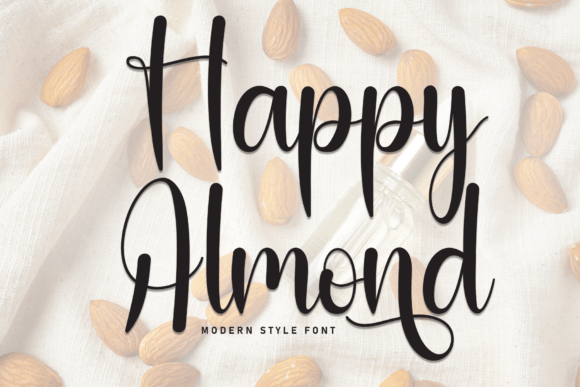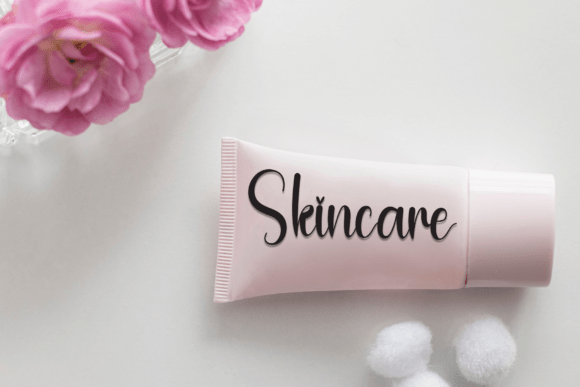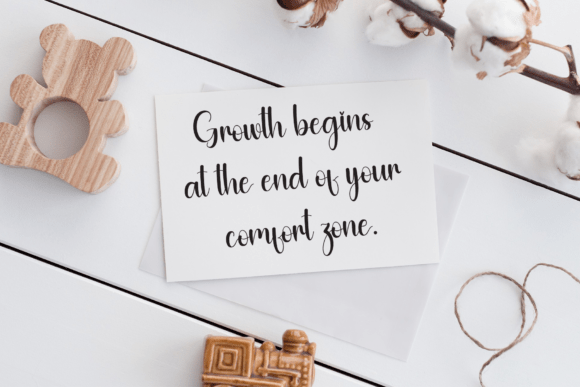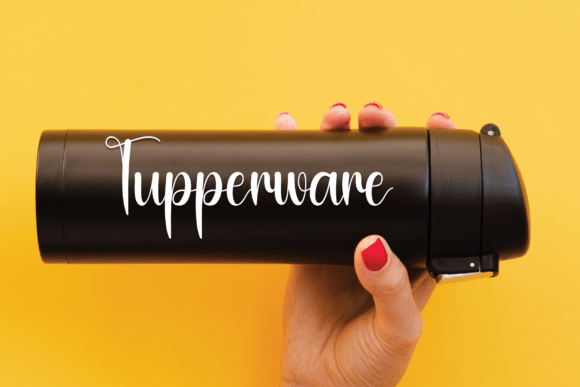
Happy Almond Font: Elegant Script for Branding & Invitations
About the Happy Almond Font
Crafted with precision, the Happy Almond Font is ready to bring your ideas to life. Happy Almond is a stylish handwritten script font that blends modern elegance with a playful touch. Its fluid strokes and charming curves bring a personal feel to any design. Ideal for logos, packaging, and invitations, this typeface adds warmth, sophistication, and creativity to every project.
Happy Almond thrives in applications requiring a touch of friendly sophistication. Logos, invitations, and short-form marketing materials like social media posts will benefit from its charming personality. However, its script nature makes it less suitable for extended body text or user interfaces where legibility is paramount.
Pairing Happy Almond effectively depends on the desired emphasis. For a playful yet balanced design, consider pairing it with a clean sans-serif like Montserrat or Lato. To create a more elegant and refined aesthetic, a classic serif such as Garamond or Playfair Display would provide excellent contrast.
The font’s overall personality is best described as cheerful and sophisticated, conveying a sense of warmth and approachability without sacrificing elegance. It’s ideal for brands targeting a younger, style-conscious audience, particularly those in the food, fashion, or beauty industries.
Happy Almond Font Usage Examples
Happy Almond Font Example